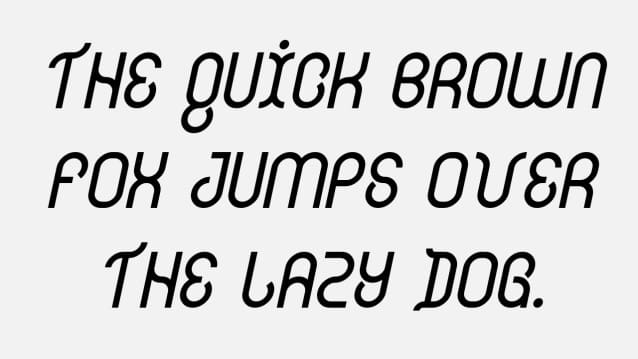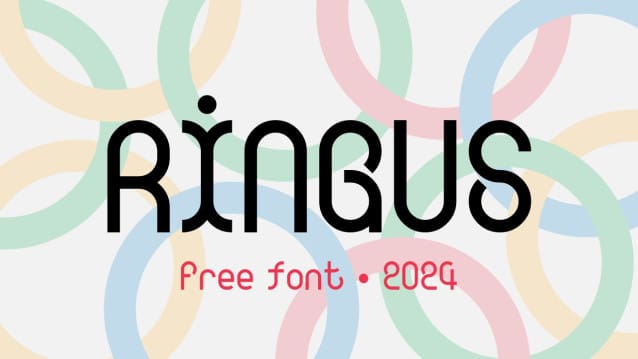
Ringus Font
Ringus Font, perfectly fit for branding, logo, wedding things, greeting cards, fashion, lookbook, marketing promotion, anytime you want to look fancy elegant but still casual.